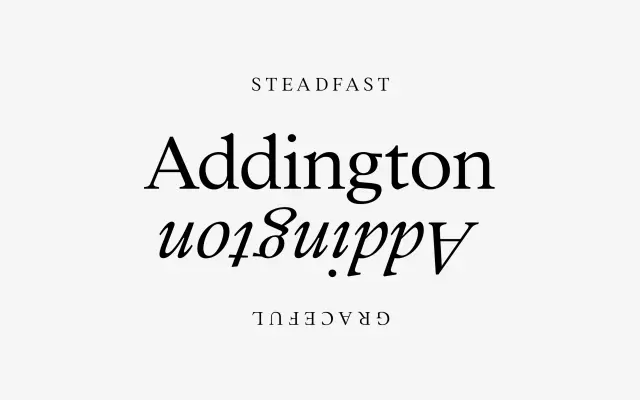
Addington CF
A text serif in seven weights with full italics, covering Latin and Vietnamese and offering small caps, lining figures and discretionary ligatures throughout.
Designed to work at text sizes and scale to display, it covers fourteen styles from Thin to Extra Bold with matching italics. OpenType features include small capitals, tabular and lining figures, ordinals, fractions and a range of discretionary ligatures. Language support is broad for a single-family release, reaching Vietnamese alongside the standard Western European set.
A text-optimised serif with classical proportions and moderate contrast, suited for both body text and display use, consistent with transitional serif conventions.